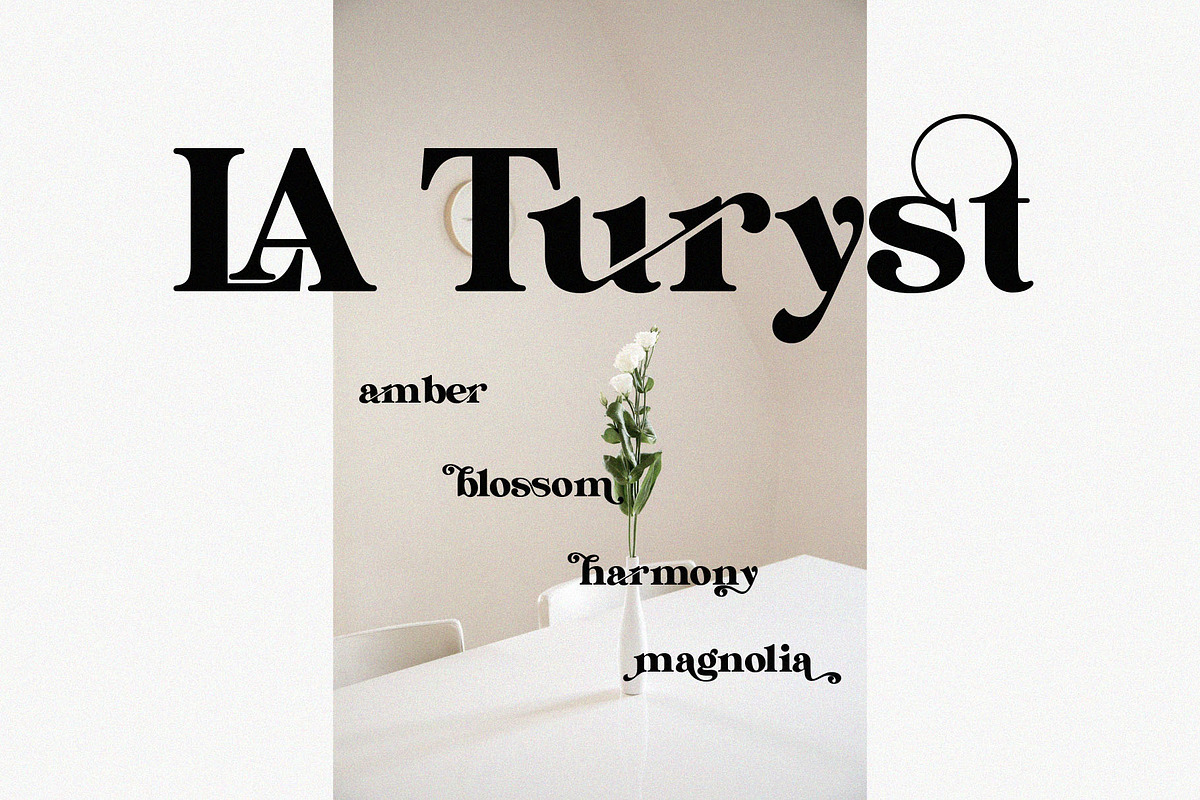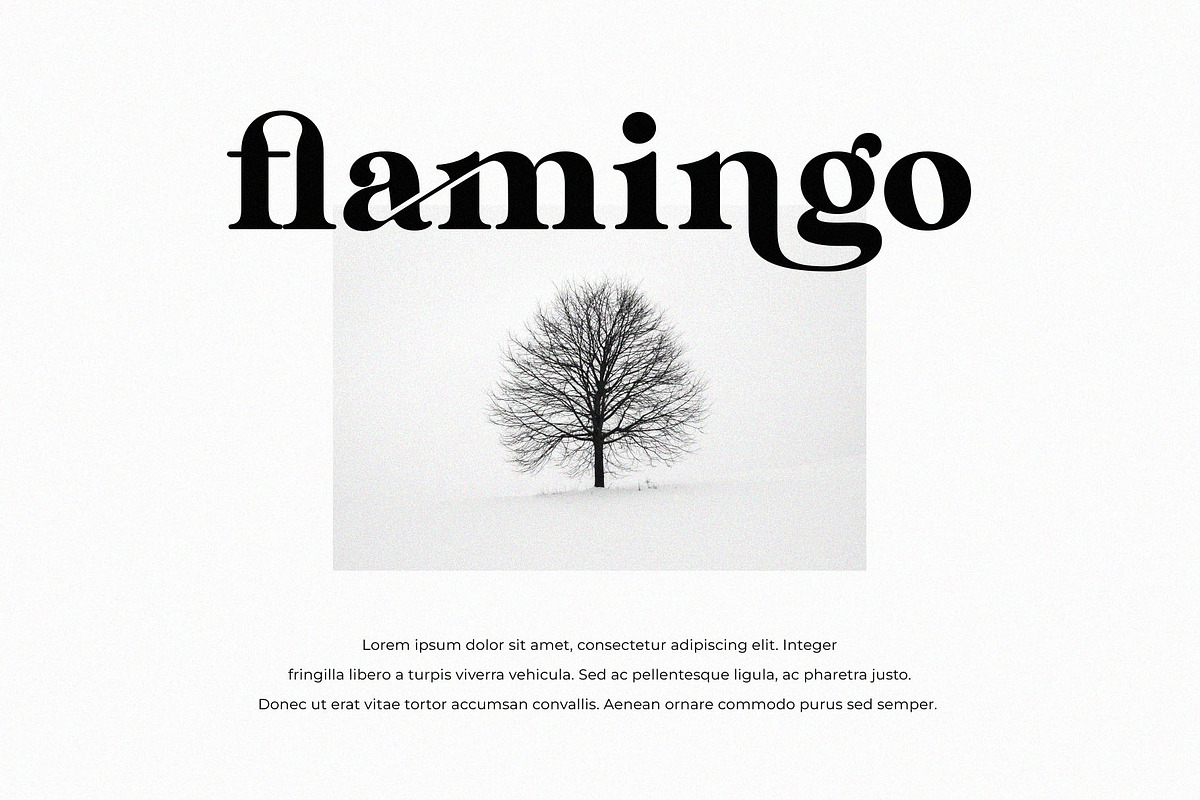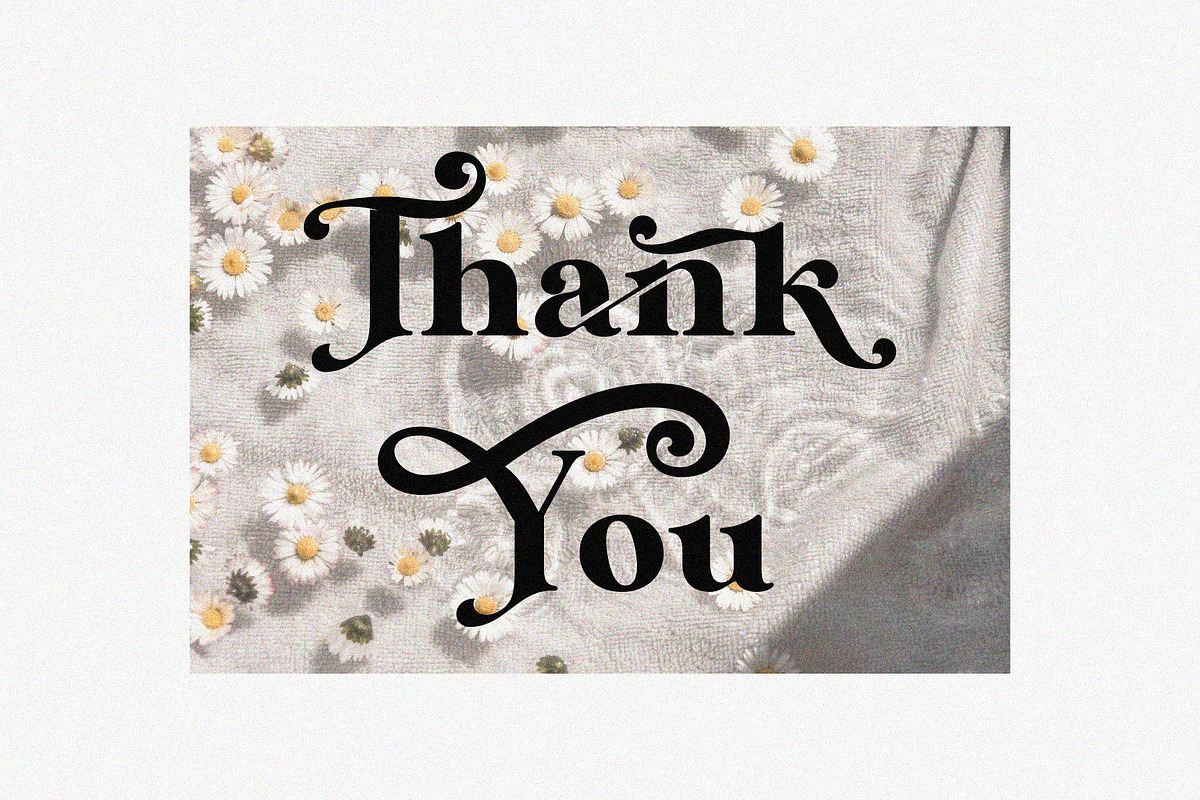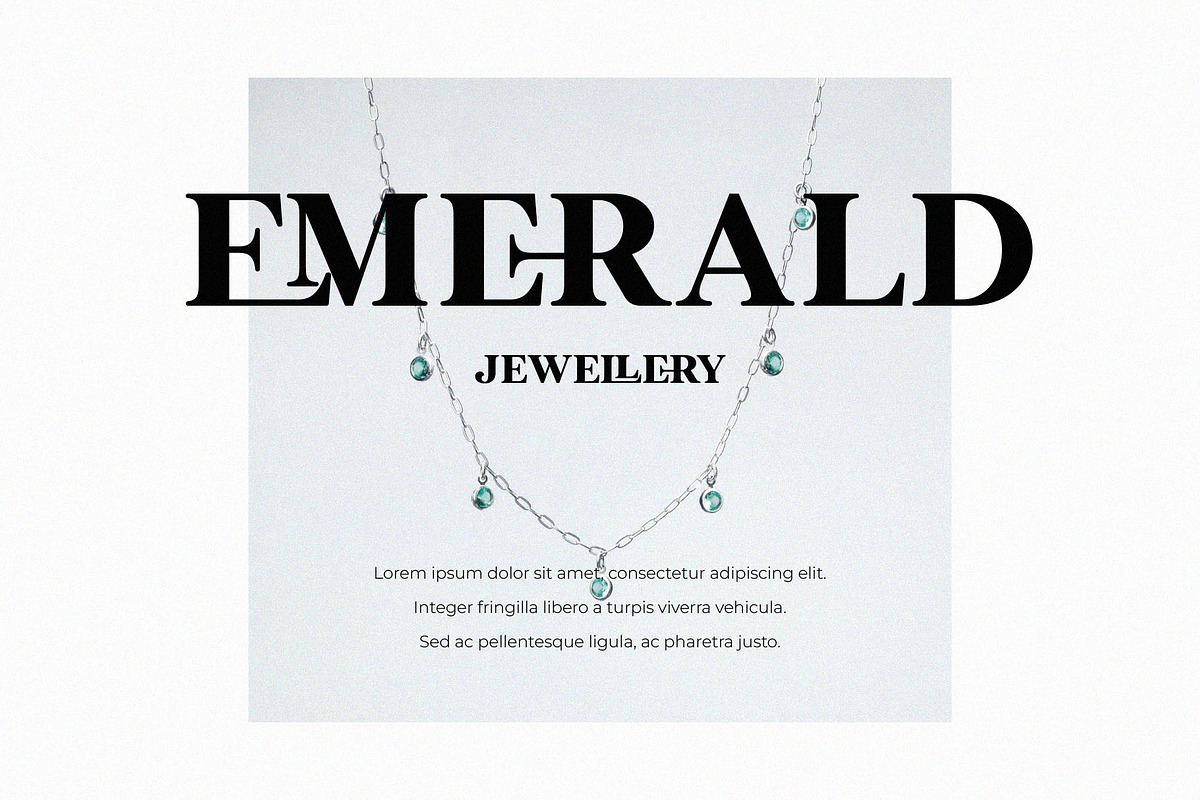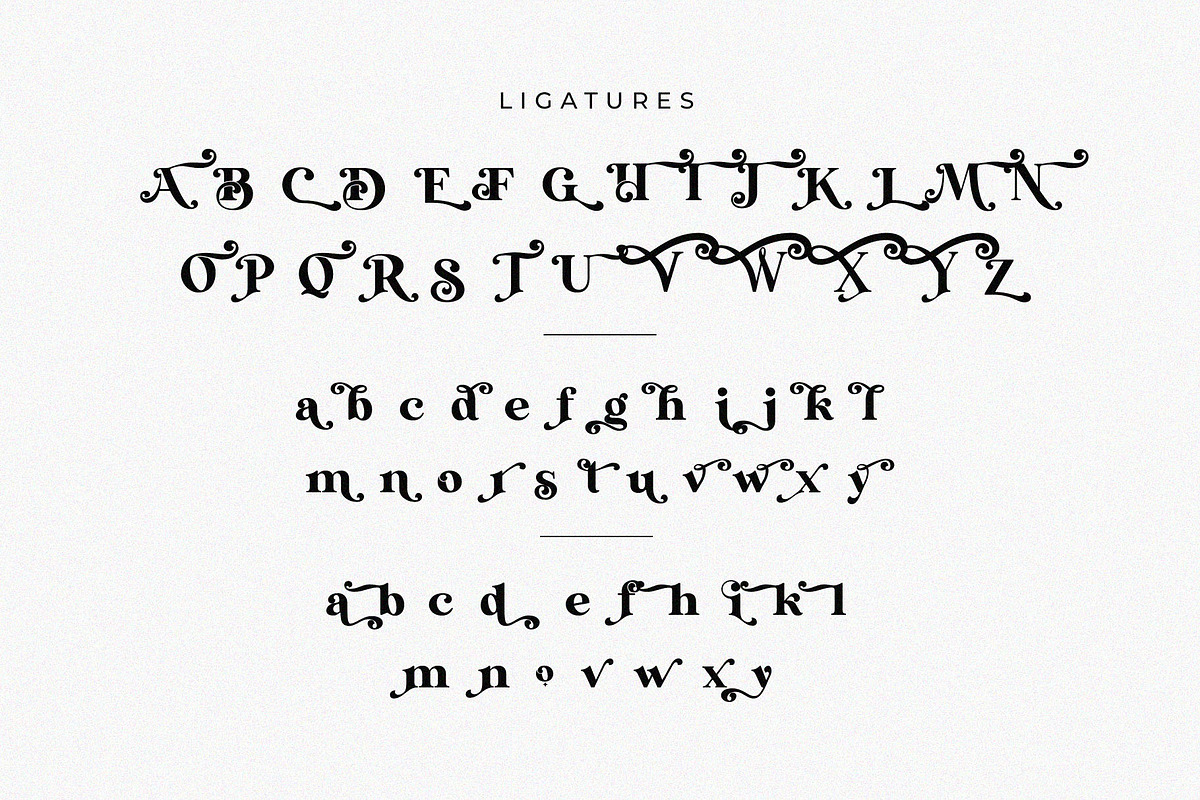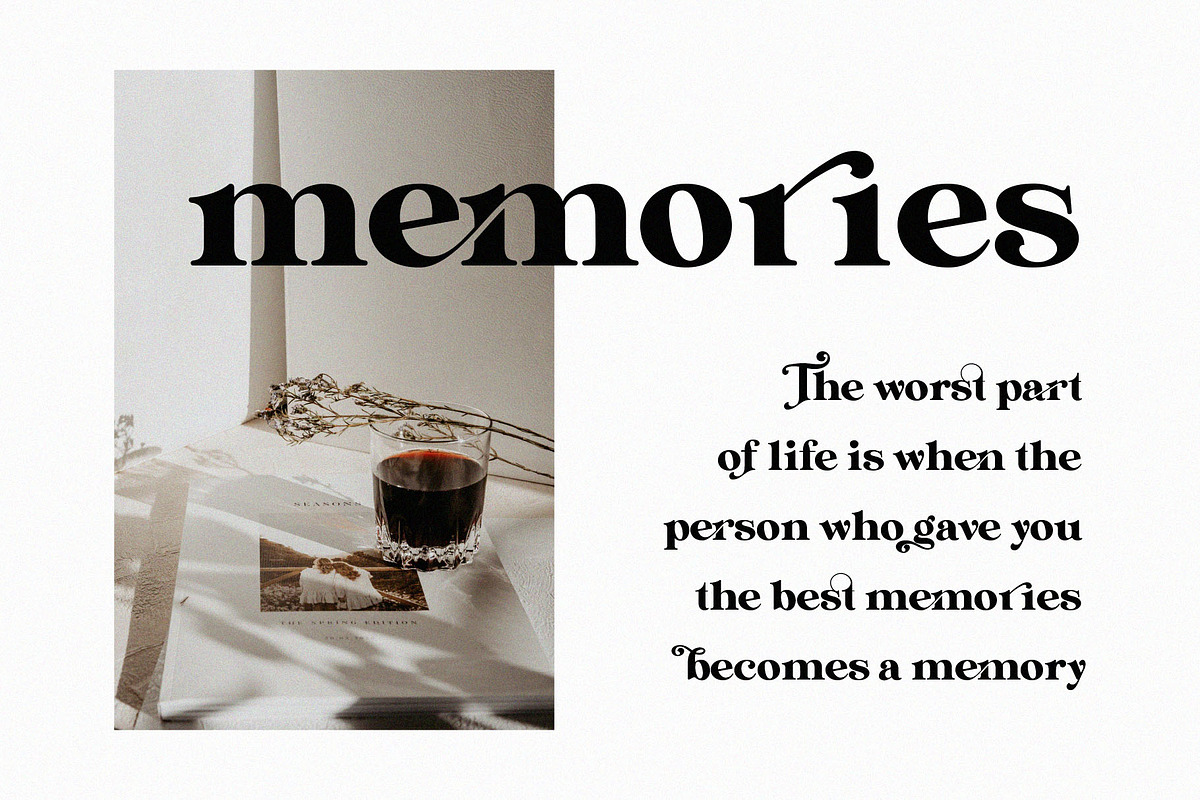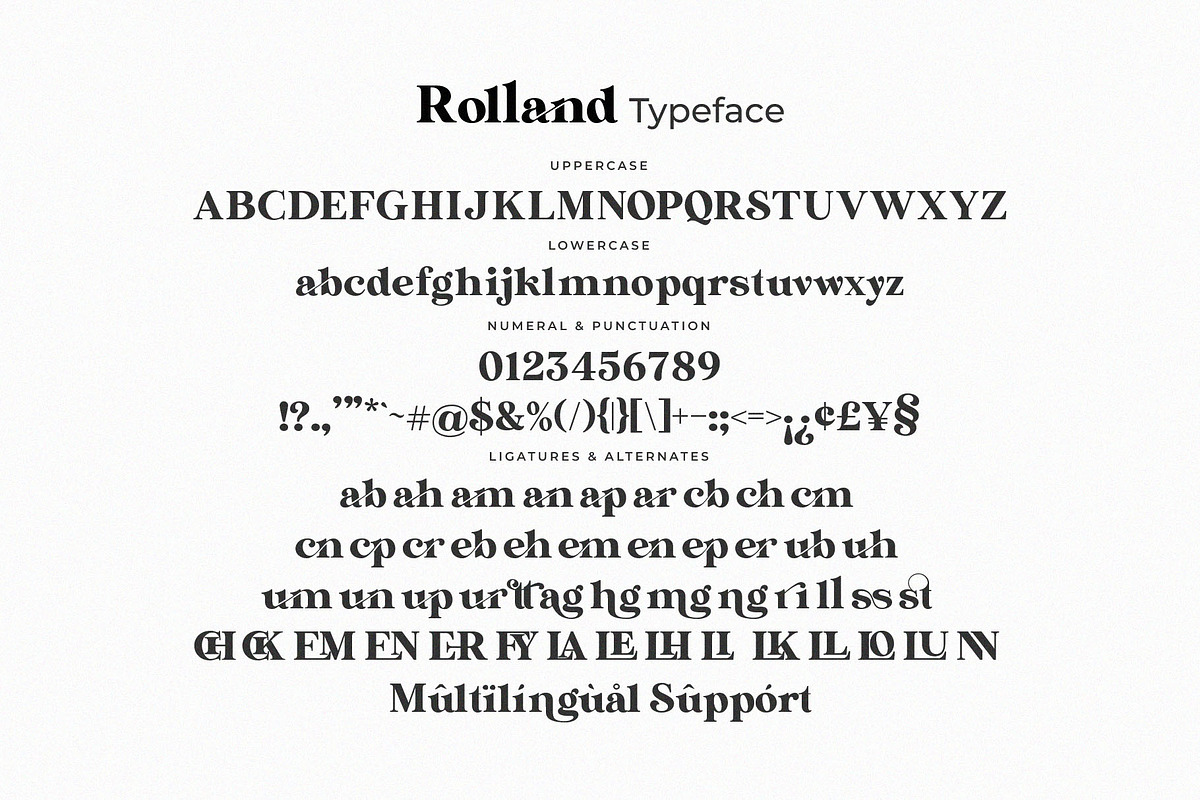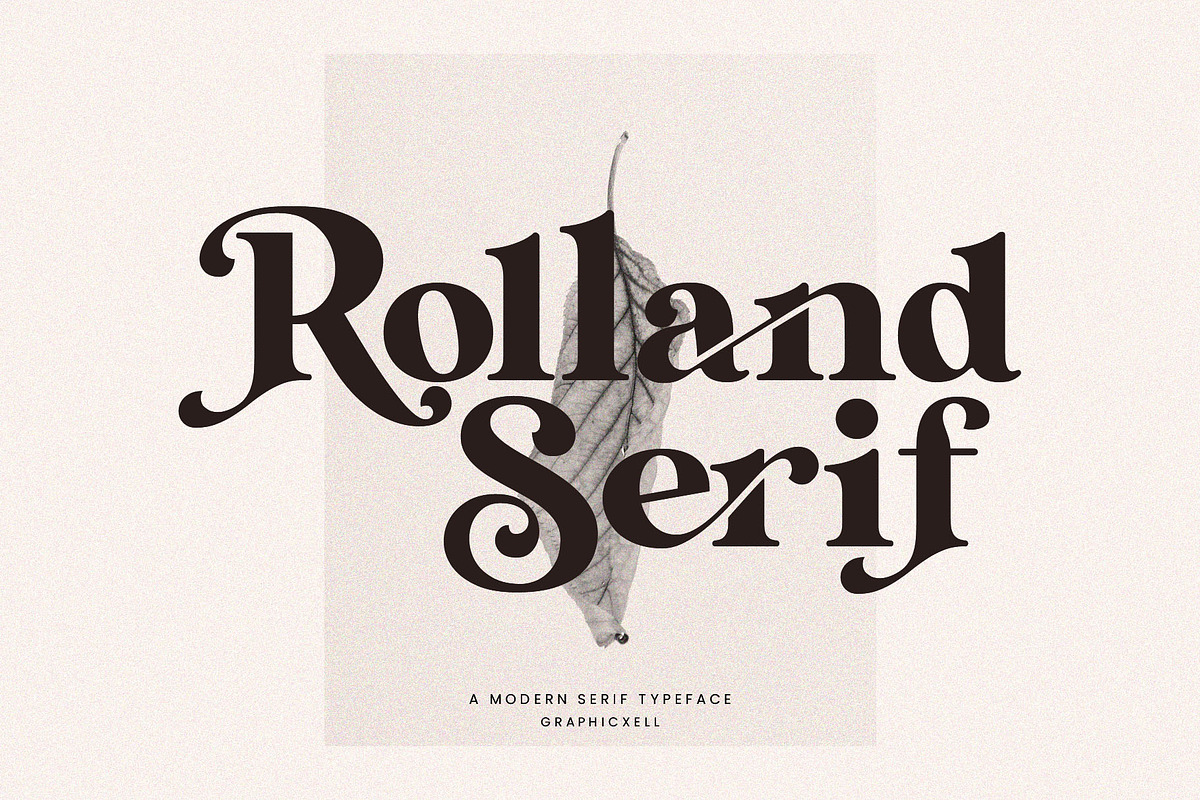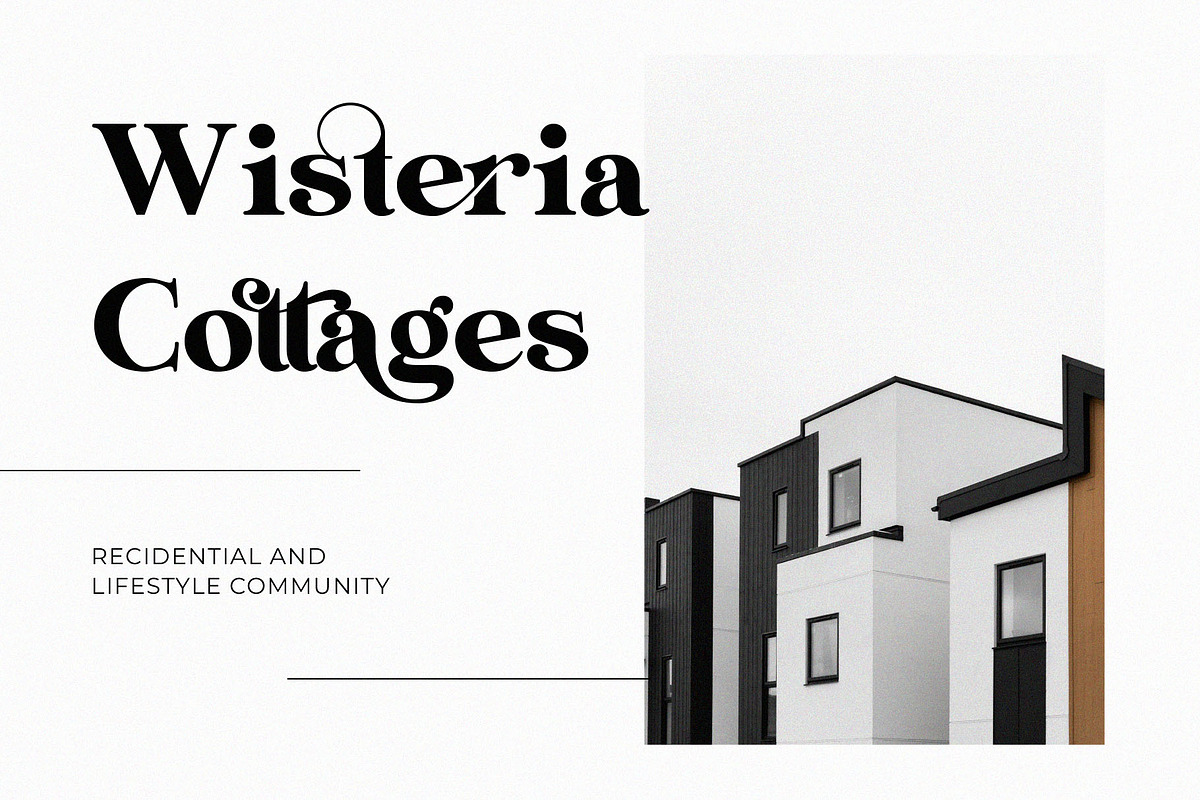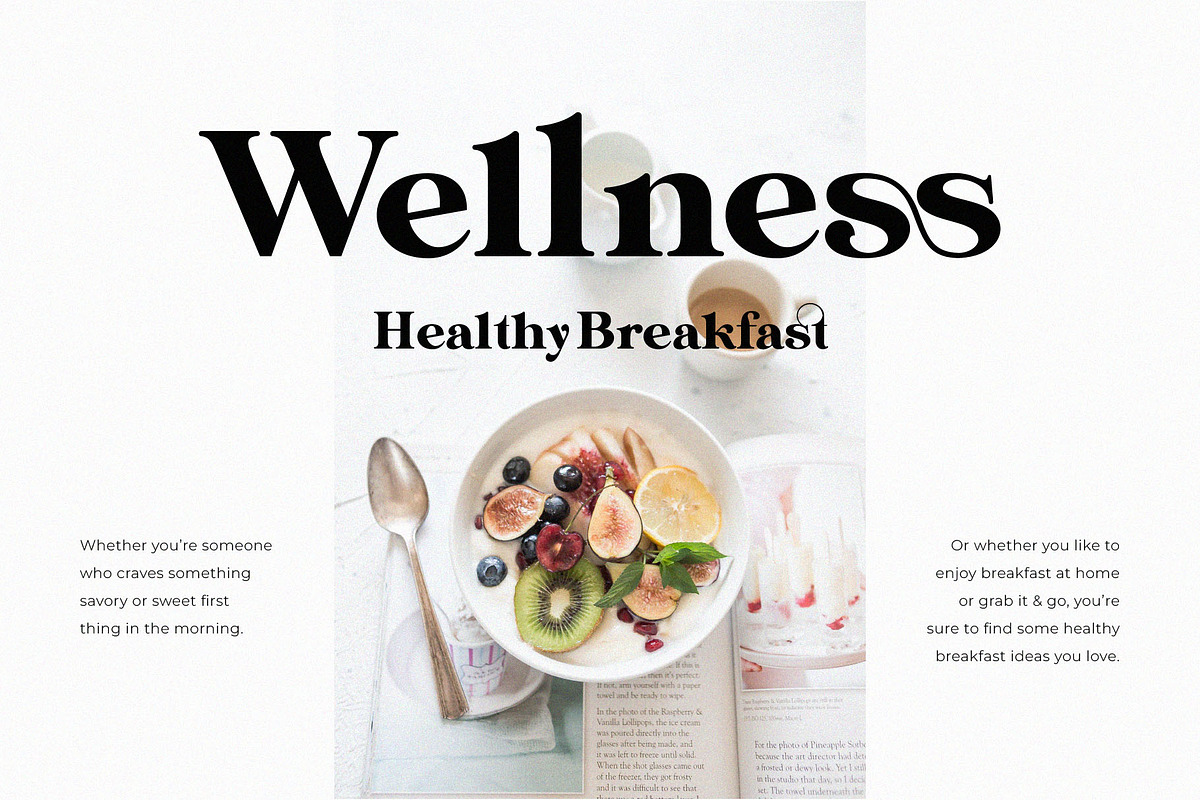
Rolland Ligature Serif Font Typeface
Roland Ligature Font is an elegant typeface that comes with unique ligatures as the main appeal. However, it also offers decorative additions that make it look more stunning. Belongs to a serif font, it comes with simple counter-strokes. However, the beautiful ligature makes it awesome. The ligature can connect more than 2 letters. Moreover, the rhombus shape becomes an additional decoration that draws attention. The elegant look makes this font perfect for design purposes such as logos, branding, advertising, videos, brochures, templates, and many more. What makes it special is how it blends elegance and creativity. That’s why Gingko Ligature Font should be a must-have font for every digital designer. With a high level of beauty, it doesn’t reduce the readability. That’s why this font is not only recommended for informal but also formal designs. Giving a professional look, this font will make the design of a product easier to be recognized by the public.